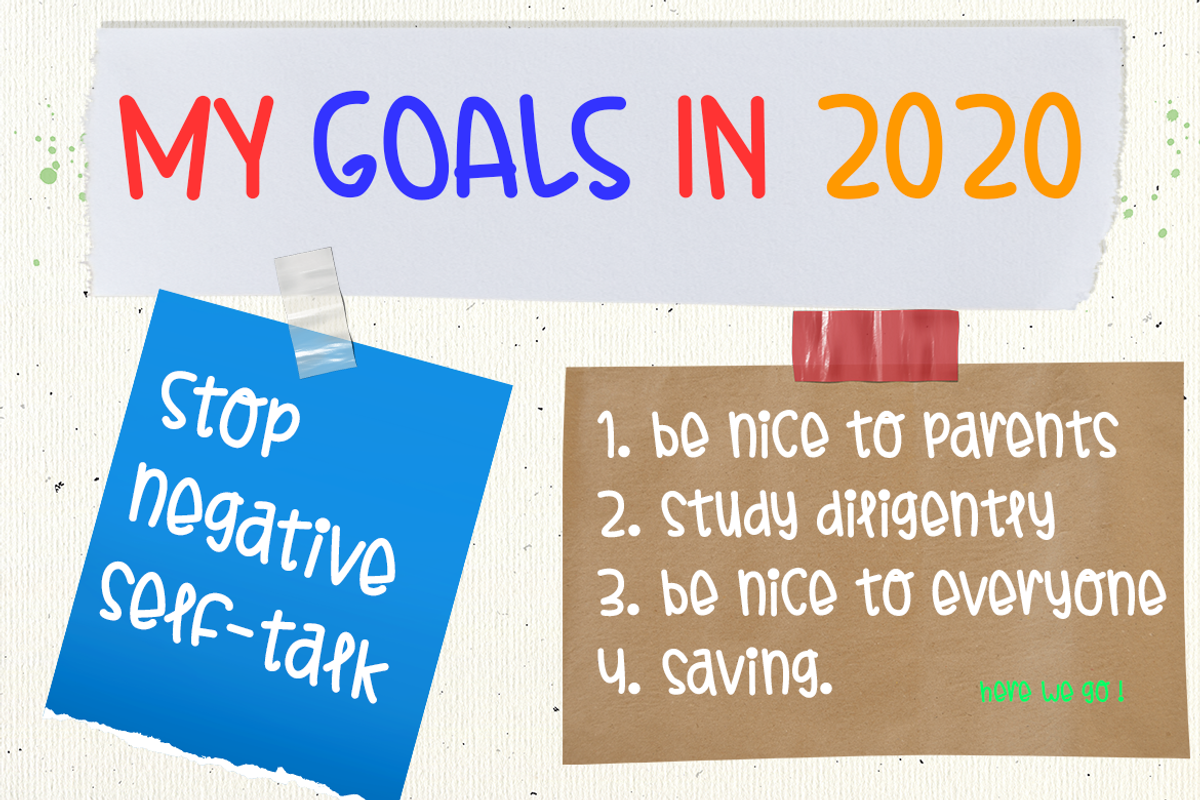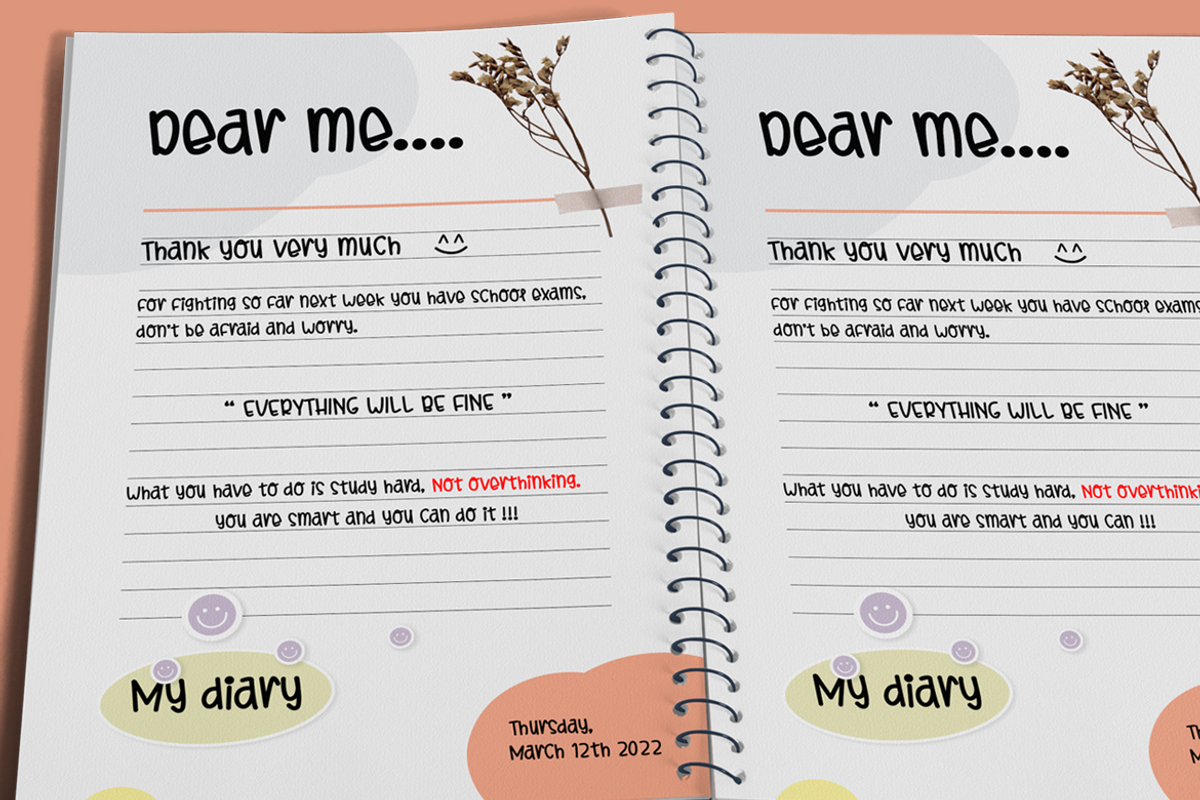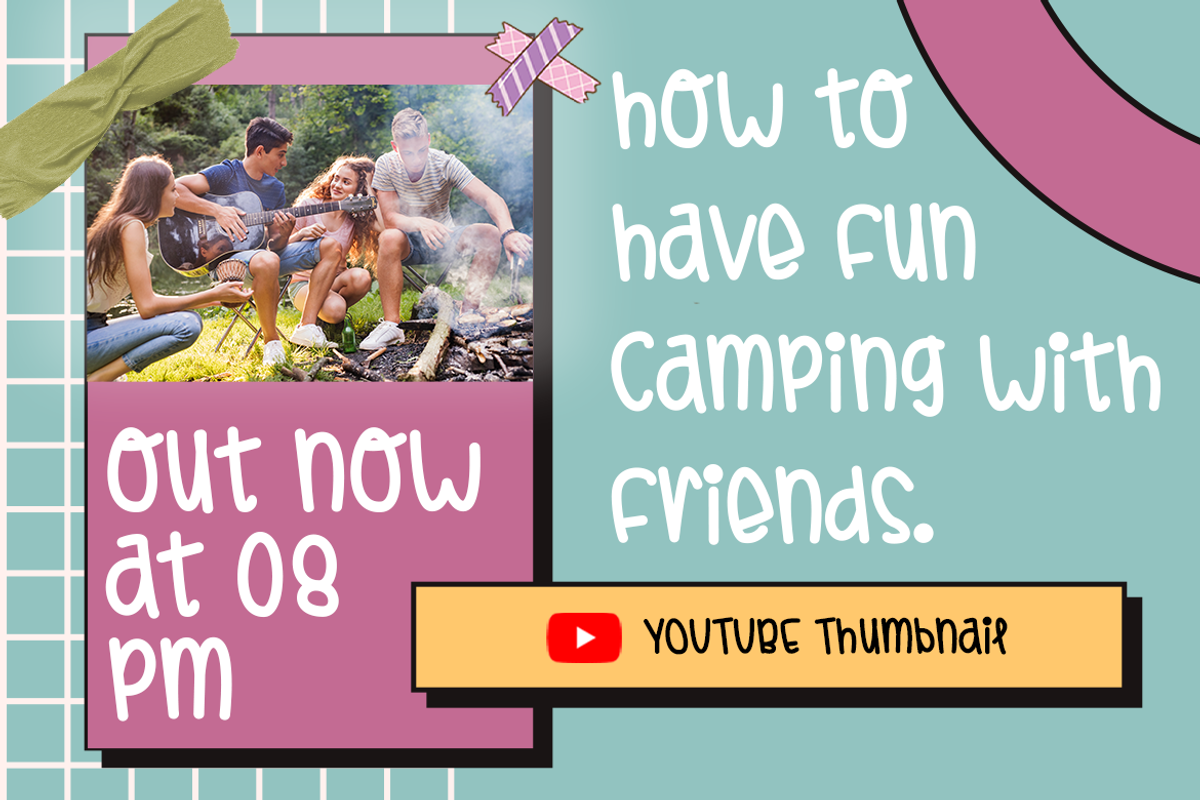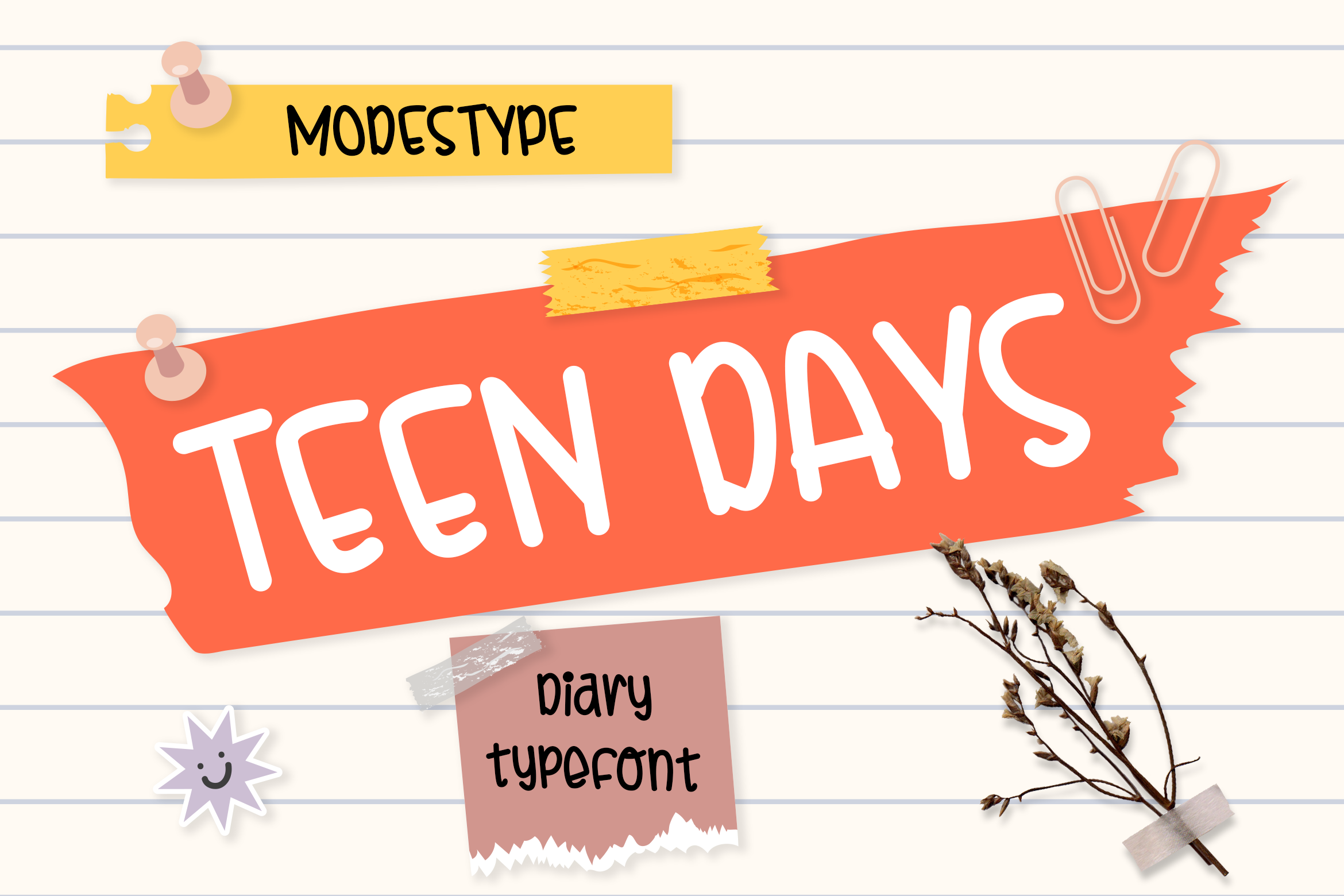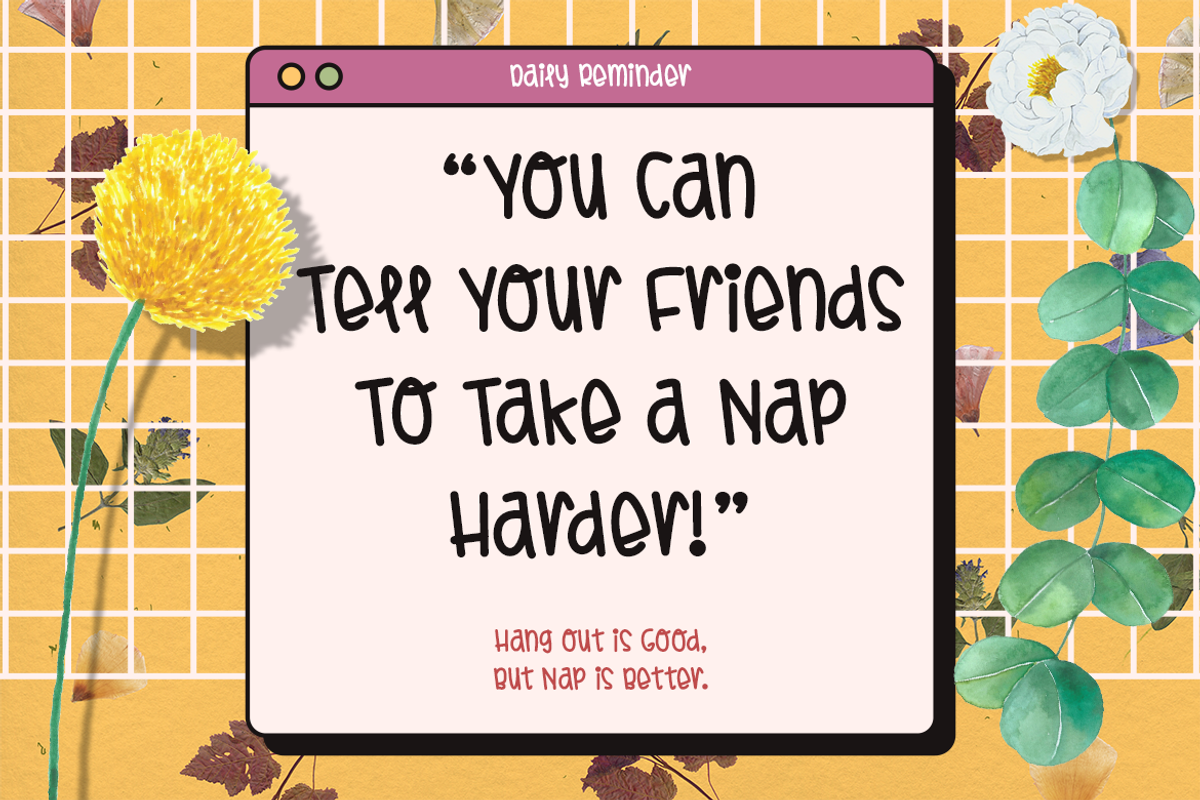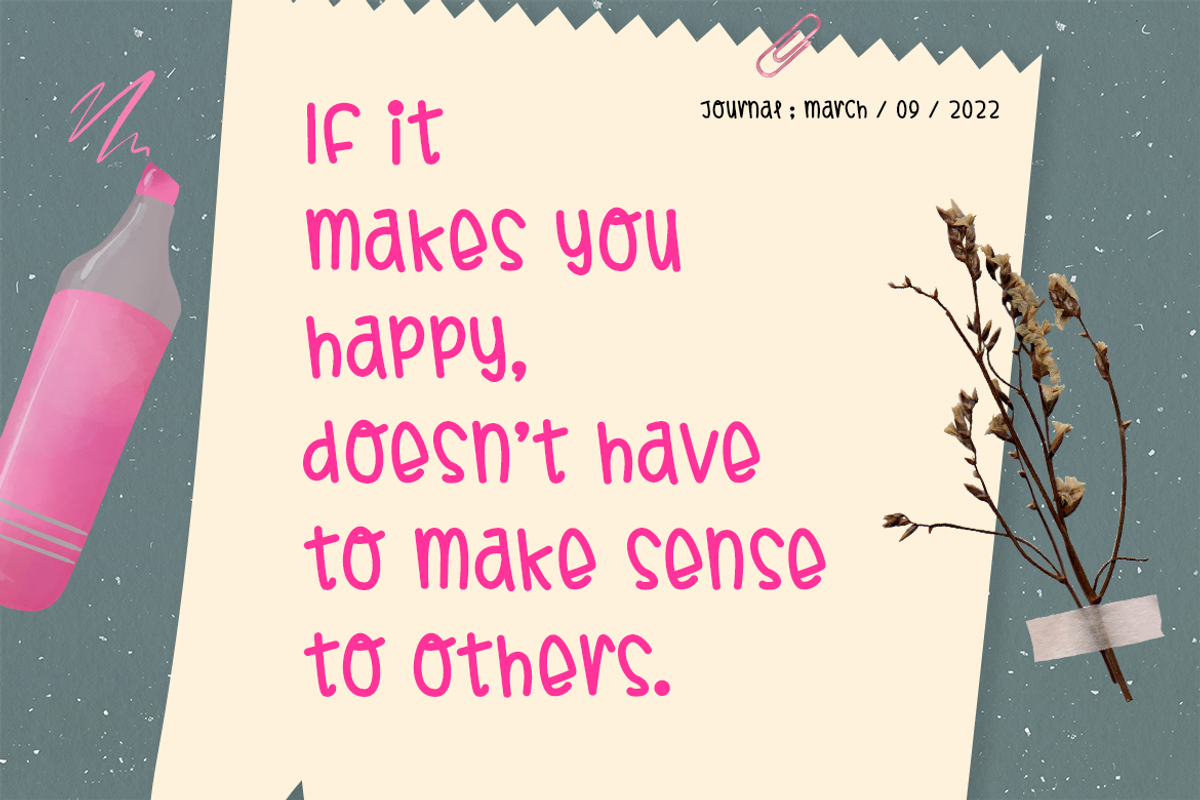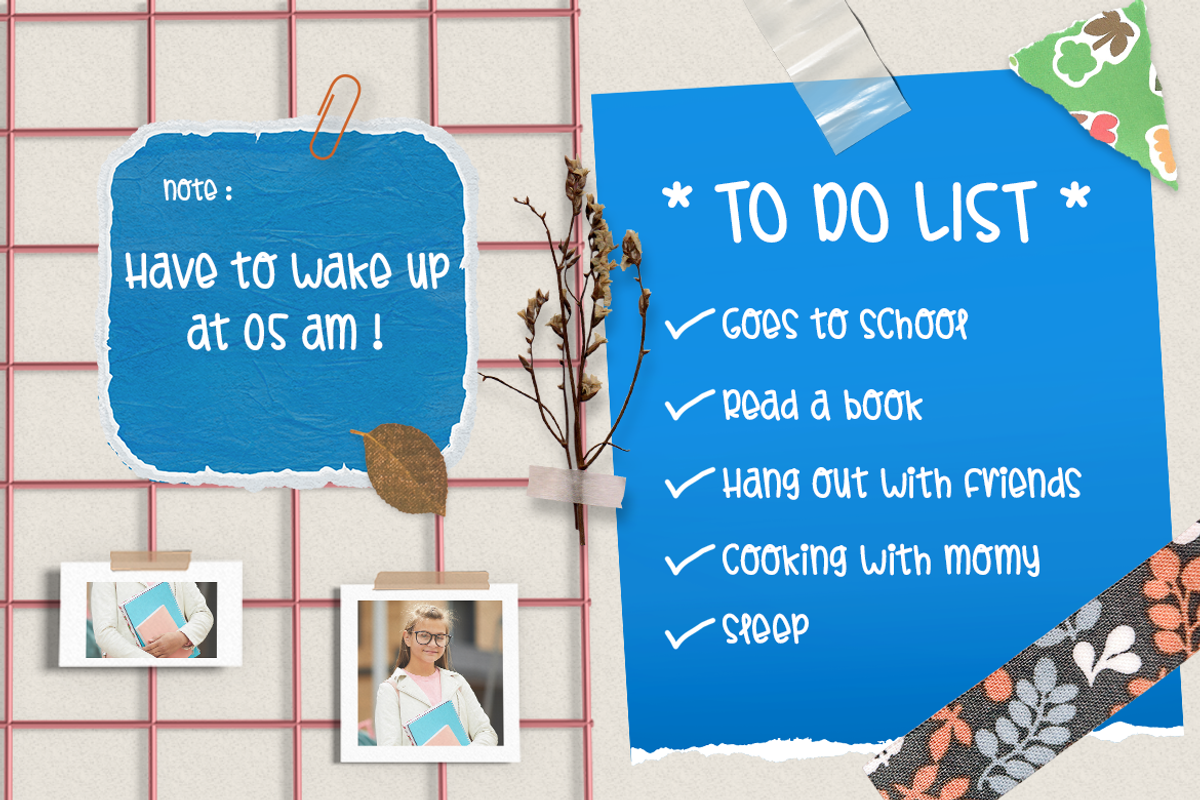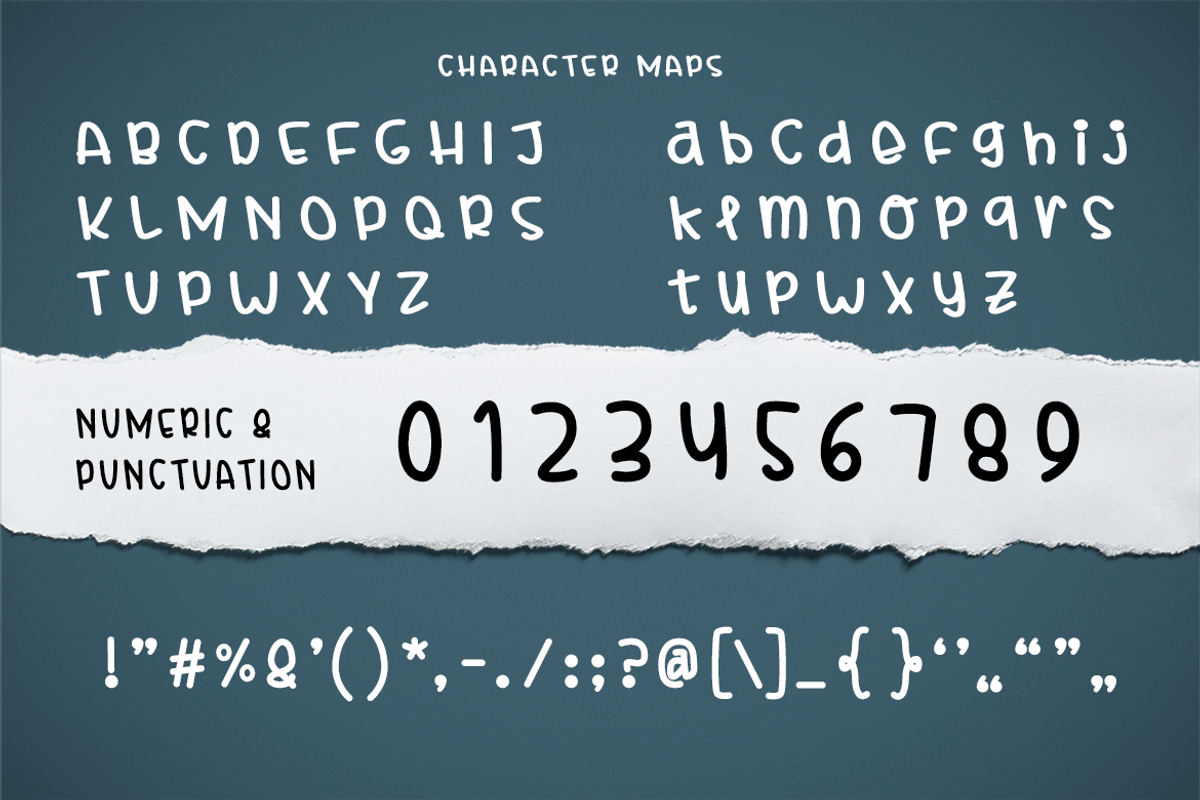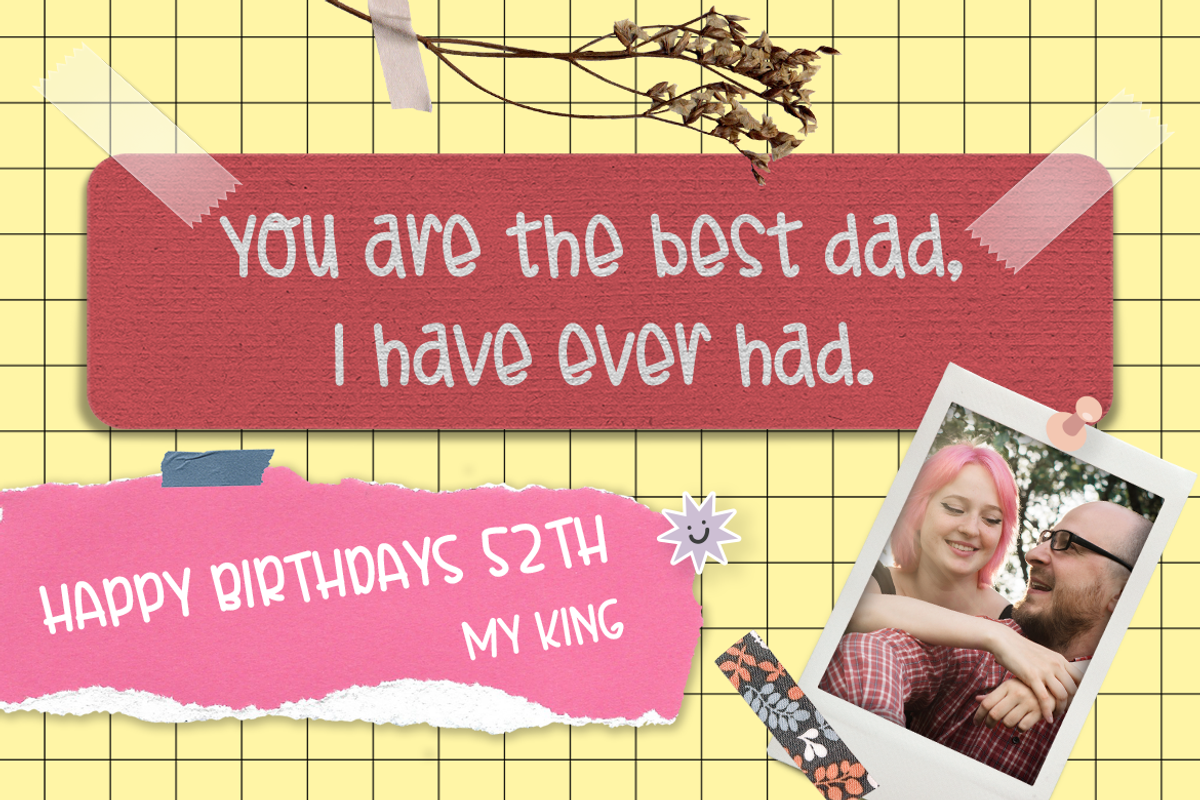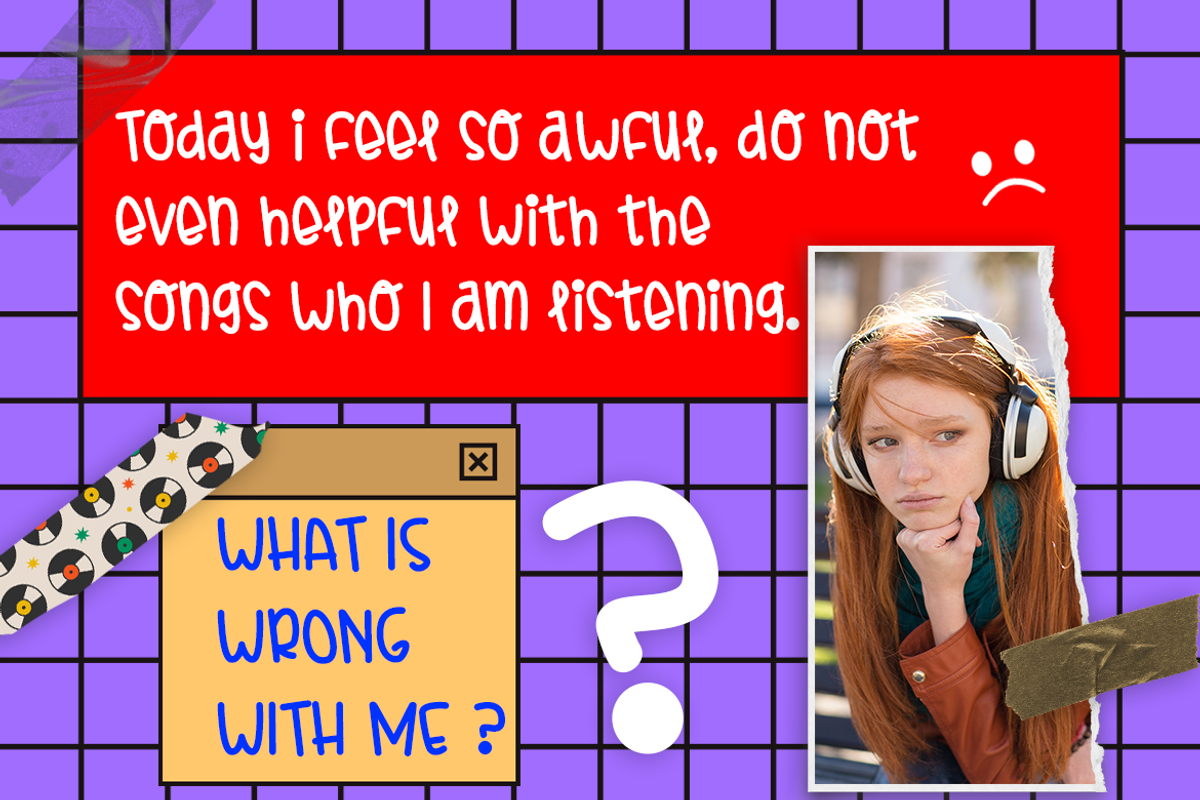
Teen Days - Diary Kids Font
Teen Days - Girly Kids Font
Teenager love to write their experience during the day in their lovely notes. And Teen Days is a perfect choice for that. Slightly slant to the right is an awesome way to show that teenager do love to stand out compared to other.
Suit perfectly for teenager books market, online games, exploration event poster, school supplies font, poster, movie title, youtube covers, youtube thumbnails, social media page covers and so on...